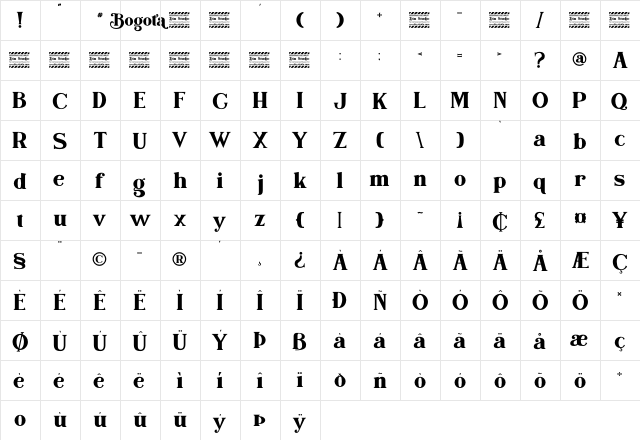
Bogota Bold Personal Use Regular
Design Context for Bogota Bold Personal Use Typeface
Bogota Bold Personal Use is a composed and adaptable typeface that performs quietly and consistently across a wide range of design contexts. Its bold stroke weight gives it real presence on the page.